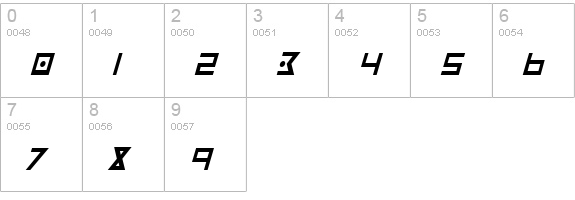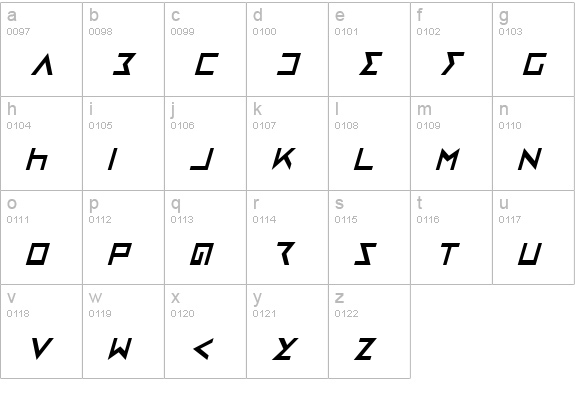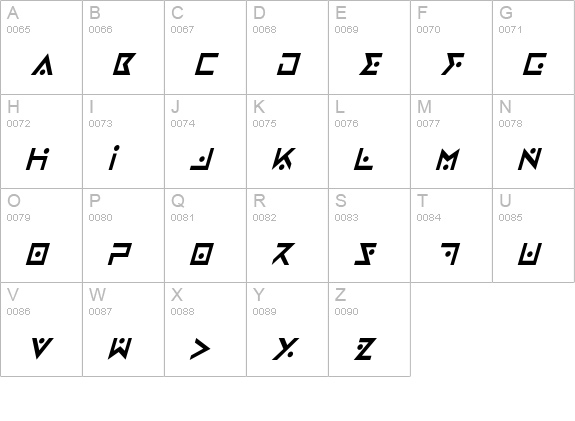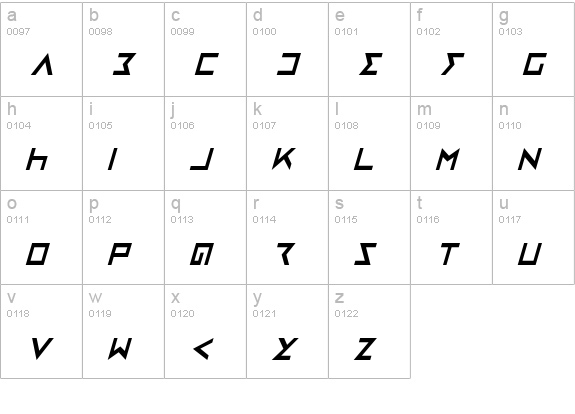
Iron Cobra Condensed Italic is a distinctive, condensed-width, italic variant in the Iron typeface family \xE2\x80\x94 well suited to design and typography projects.
Iron Cobra Condensed Italic is a sleek and sophisticated typeface that exudes modernity and elegance. Its condensed form gives it a unique and striking appearance, making it perfect for use in headlines, branding, and other design projects where a contemporary touch is needed. The italicized style adds a touch of flair and dynamism to any text, enhancing its visual impact. What sets Iron Cobra Condensed Italic apart is that it is not only stylish and versatile but also completely free to download. This means that you can access this high-quality font without any cost, making it an invaluable resource for designers, creatives, and anyone looking to elevate their projects with a touch of refinement. You can easily get your hands on Iron Cobra Condensed Italic by visiting FontsMarket.com, where it is available for free download. Don't miss out on the opportunity to add this impressive font to your collection and take your design work to the next level.